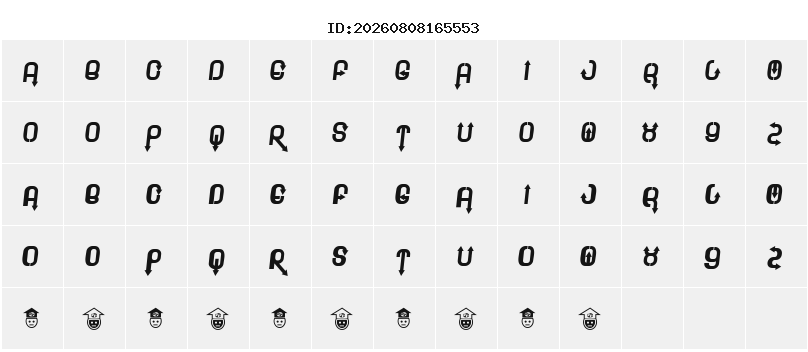
• Font Name: Plee
• Full Font Name: Plee
• PostScript Name: Plee
About Plee.ttf
Plee.ttf is a modern, elegant sans-serif font designed for ultimate readability and visual harmony. Perfect for branding, headlines, web design, and print materials.